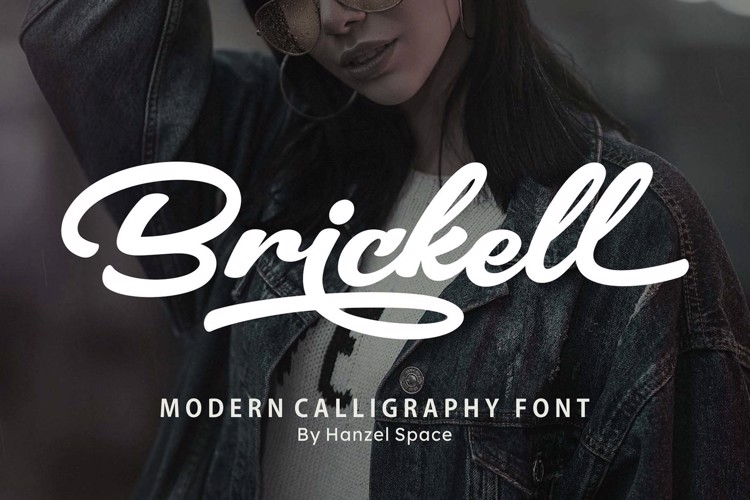
Brickell Font
About Brickell Font
Are you looking for a modern trandy script font? Do you want to create something that stands out and inspires
endless creativity, imagination and fun? What are you waiting for, we will provide the best choice for you.
Introducing Brickell Script Font. I created this font with a beautiful and beautiful touch, it has a very distinctive character and is interesting to look at. It looks refined, elegant and unique.
Brickell was designed for personal characters such as strong, confidence, dynamic, readable, Energic, dynamic, etc.